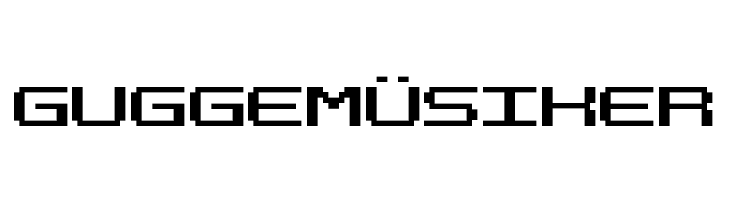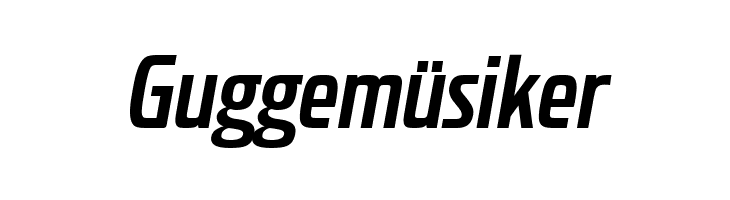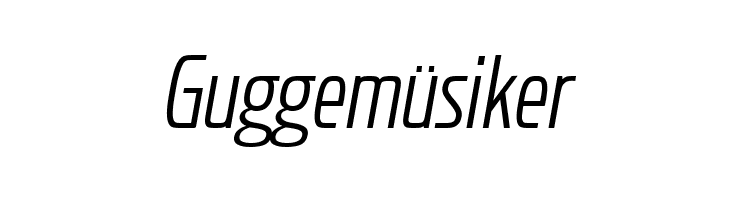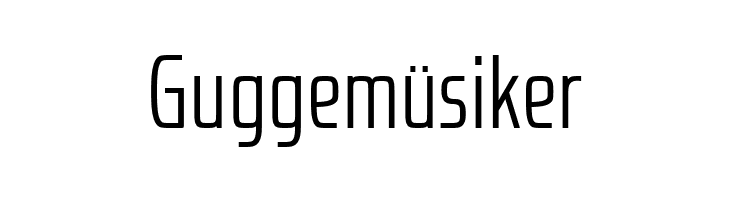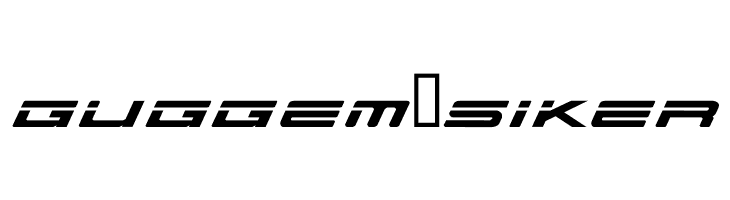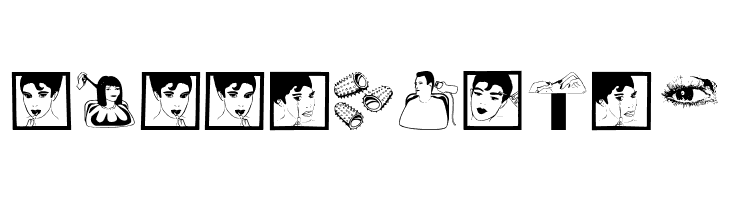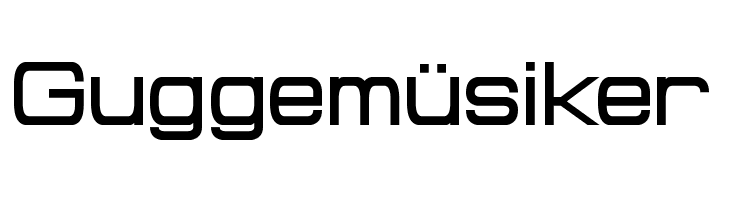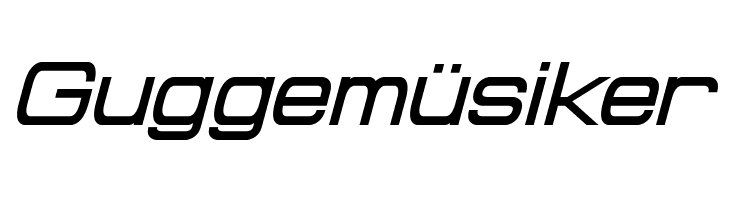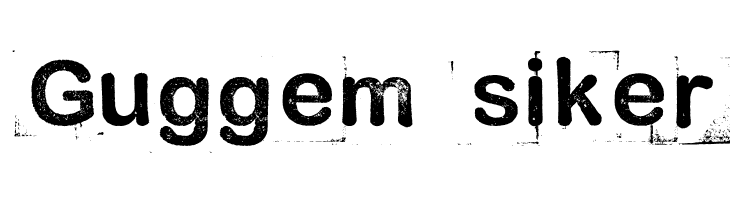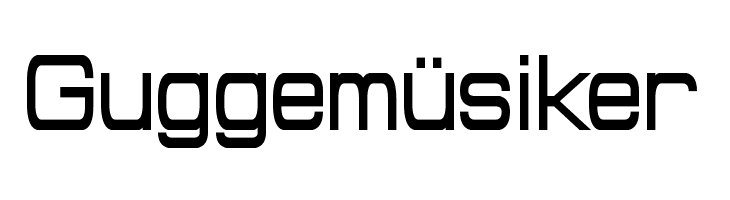
Probert Bold Font
A bold, geometric font with a modern and monospaced appearance.
Probert Black Font
A bold, modern font with a geometric design, ideal for impactful headlines.
Probert Font
A modern, geometric sans-serif font with clean lines and uniform stroke width.
Probert Condensed Bold Font
A bold, condensed font with a modern, geometric style.
Probert Condensed Black Font
A bold, condensed font with a modern, geometric style.
Probert Condensed Font
A modern, condensed font with a geometric and minimalistic style.
Probert Black Italic Font
A bold, italicized font with a dynamic and modern style.
Anal-probe Font
A bold, distressed font with a grunge, stamped appearance.
Probert Bold Italic Font
A bold, italic, modern font with a sleek and dynamic appearance.
Probert Italic Font
A modern, italicized font with sleek lines and a dynamic style.
Probert Condensed Black Italic Font
A bold, italic, and condensed font with a dynamic and modern style.
Probert Condensed Bold Italic Font
A bold, italic, and condensed font with a modern and sleek appearance.
Probeta Semi Bold Font
A modern, semi-bold font with clean lines and rounded edges.
PROBE_10PX_OTF Font
A pixelated, blocky font with a retro digital aesthetic.
ProBeauty Font
Illustrative font with beauty and makeup pictograms.
Probert Condensed Italic Font
A modern, italicized, and condensed font with a sleek design.
Probeta Semi Bold Italic Font
A modern, semi-bold italic font with a sleek and compact design.
Probeta Light Font
A modern, geometric sans-serif font with a sleek and minimalistic design.
Probeta Light Italic Font
A sleek, modern, light italic font with medium contrast and condensed spacing.